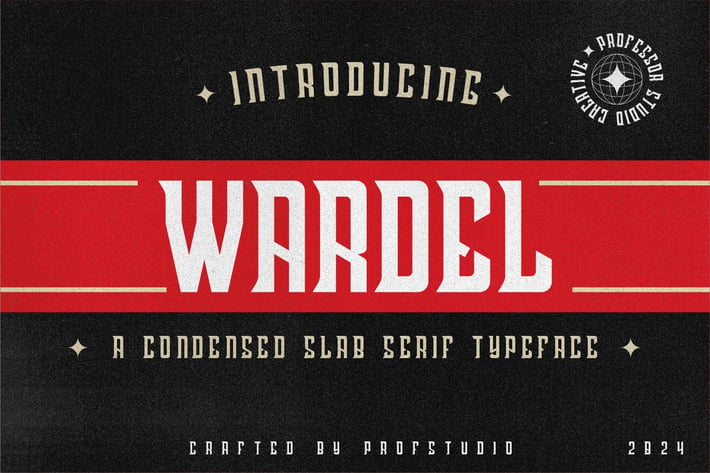
Wardel - Condensed Slab serif Typeface
Introducing our collection of bold and condensed slab serif fonts "Wardel". meticulously crafted to deliver a strong visual impact and distinctive character. Featuring unique angular cuts and pronounced serifs, this font creates a distinctive industrial aesthetic, making it the perfect choice for logos, headings, and branding that requires a retro or robust flair.
Inspired by sports themes and vintage design elements, this font is suitable for a wide range of applications, including advertising, packaging, and digital media. Ideal for conveying a sense of strength and durability, it comes in various sizes and weights, providing maximum flexibility for designers.
Standar character A-Z
Regular and Italic